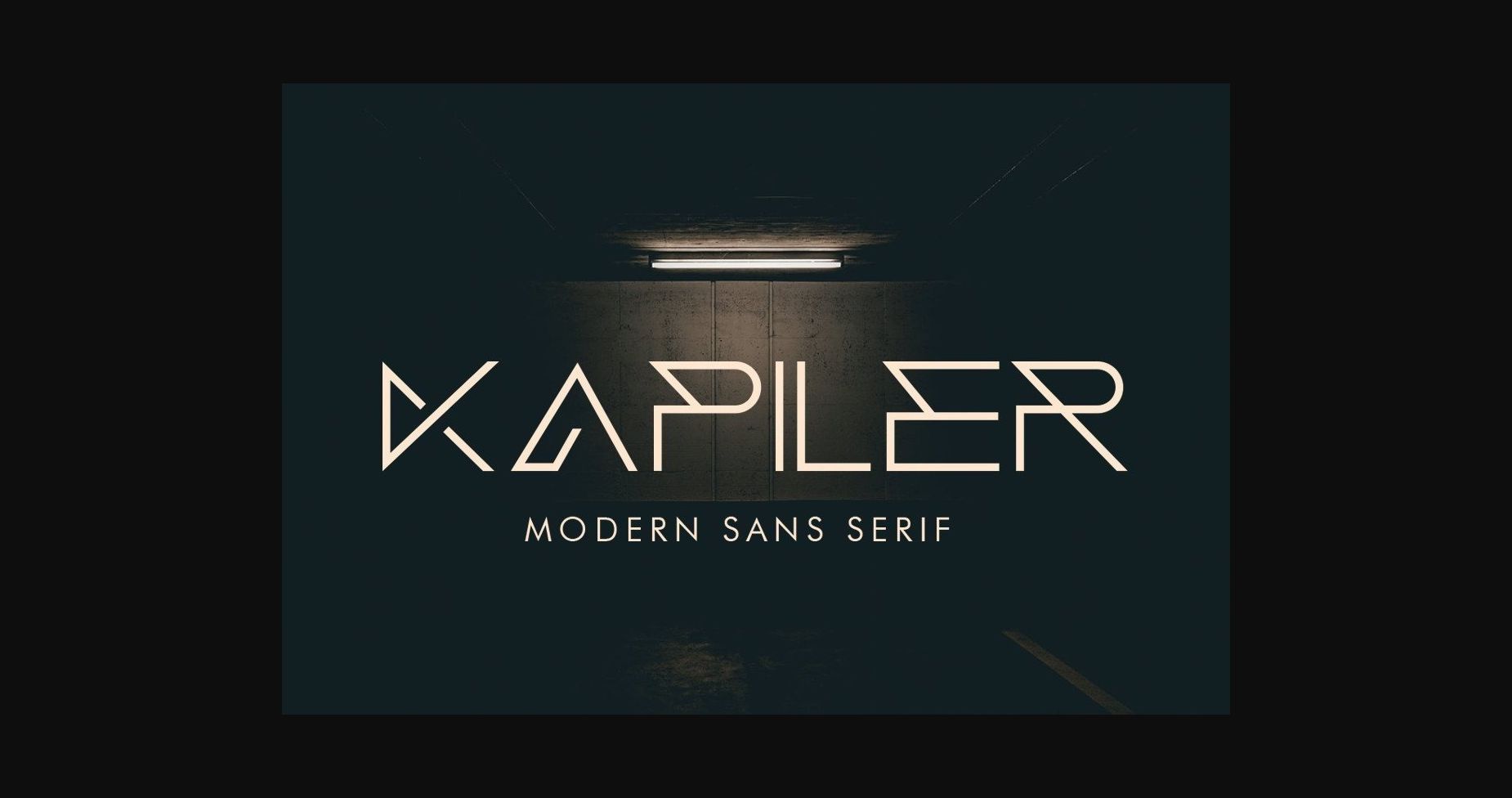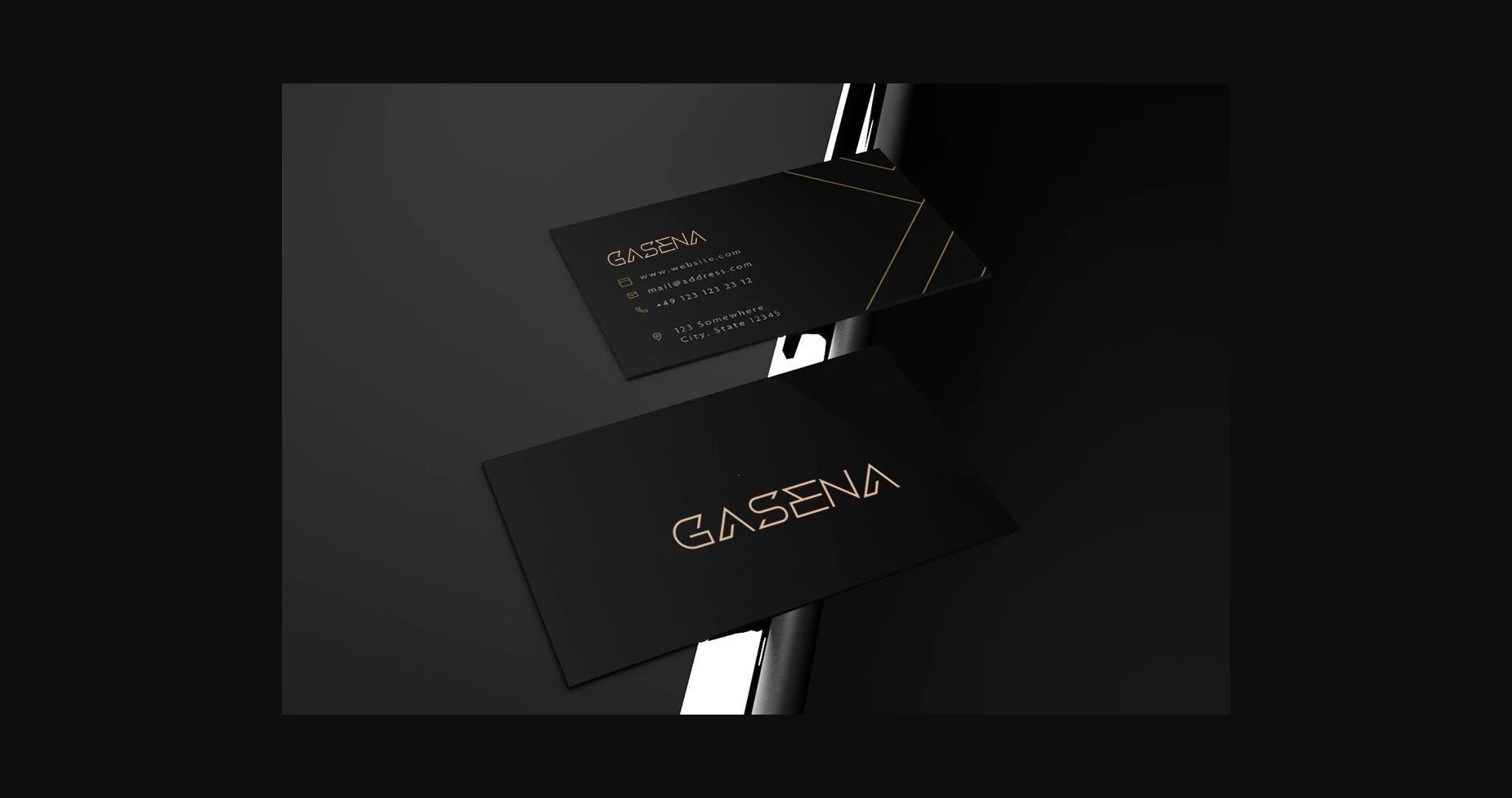
About Kapiler Font
Kapiler is a sans serif font with a unique uppercase that will make your design looks futuristic and modern. You can use this font for any purpose, especially to make logotypes.